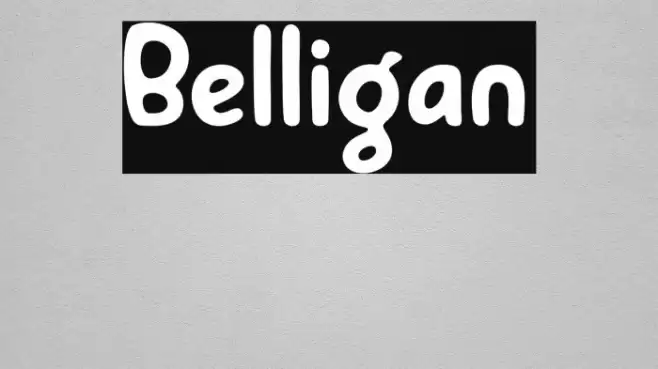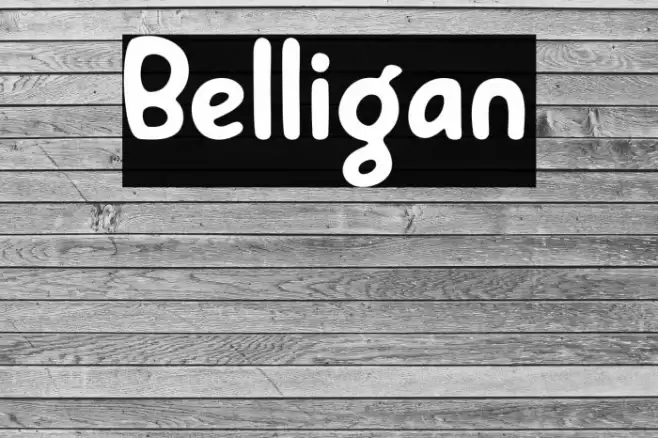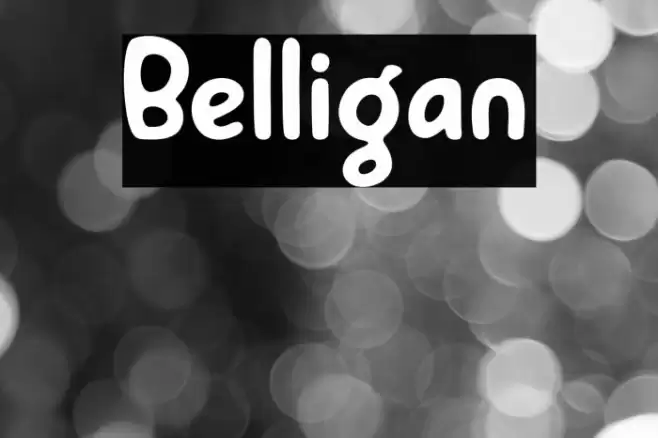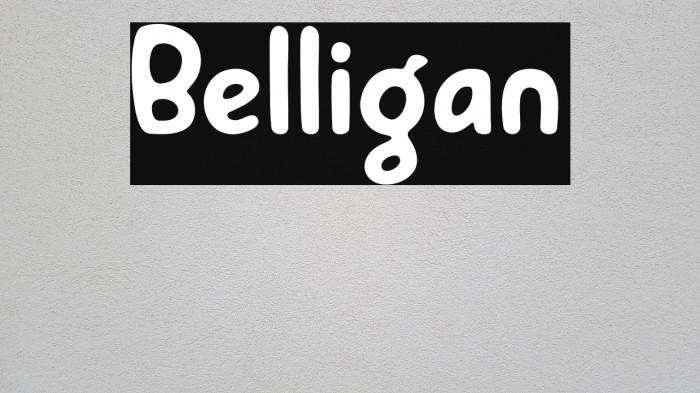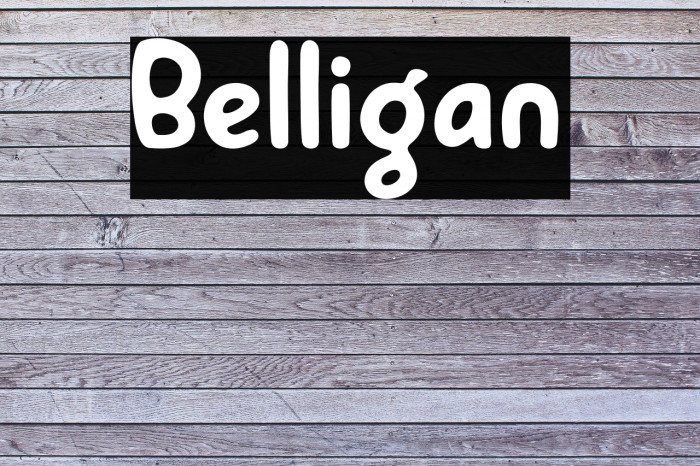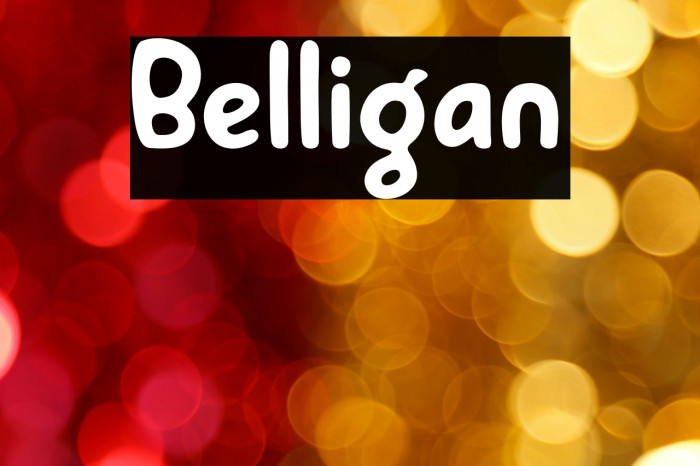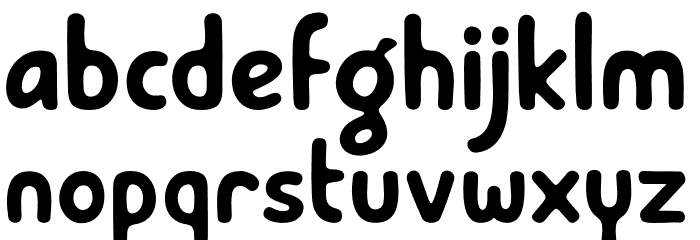
Belligan Font
Belligan Description
This font features a playful and rounded style, characterized by its bold and smooth curves. The letters have a consistent thickness, giving it a uniform appearance. The uppercase and lowercase letters maintain a friendly and approachable look, making it suitable for informal and fun designs. The numbers and special characters follow the same rounded and bold aesthetic, ensuring cohesion across all elements. Its overall design is reminiscent of a handwritten style, yet maintains clarity and readability.
A bold, rounded, and playful font with a handwritten feel from Cartoon fonts.
- Proposed Projects: Ideal for children's books, playful branding, casual invitations, and creative posters.
- Overall Style: Playful, Casual